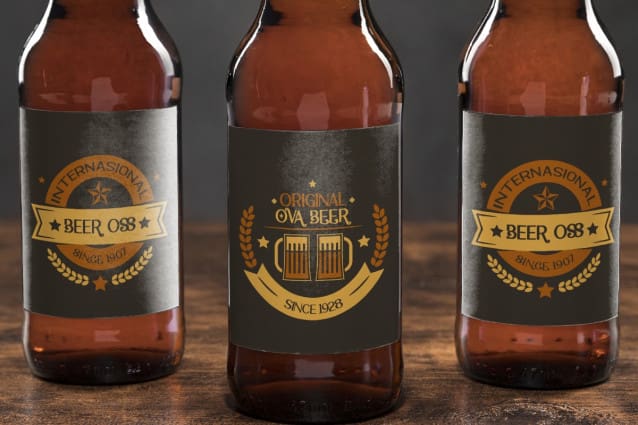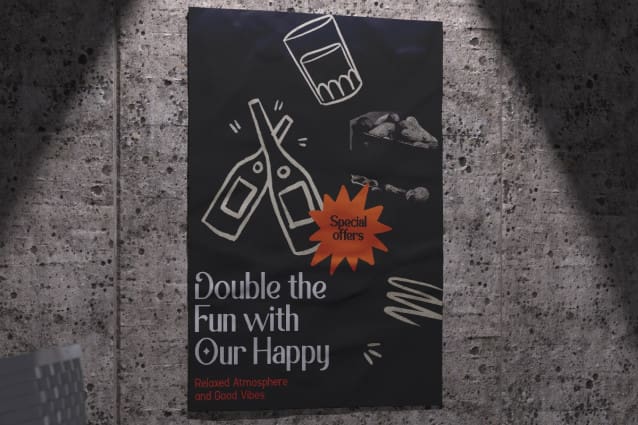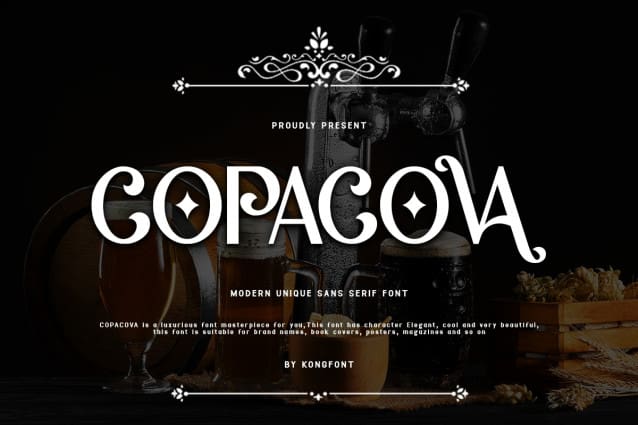
Copacova Font
Copacova Font – Modern Unique Sans Serif Font is a new Sans Serif Font creation that comes with a great style and is made with the addition of curvature variation than usual. This font is one of the fonts that give you options for people who are interested in using a sans serif font. Copacova Font – Modern Unique Sans Serif Font has the characteristic that there is no exaggeration in each form of the letter. This font has a normal shape like the original letter. From the style, this font is legible. This font will be seen as clean when used with large font size.